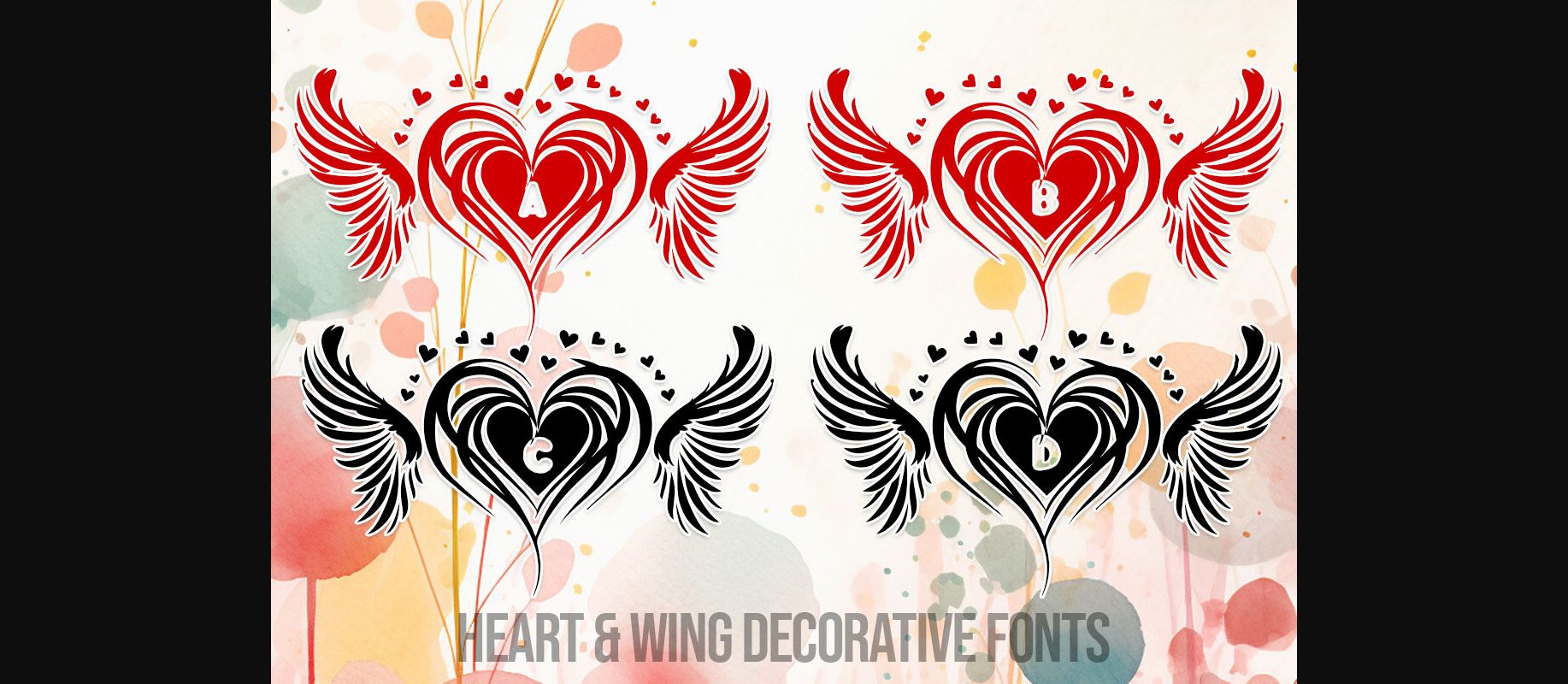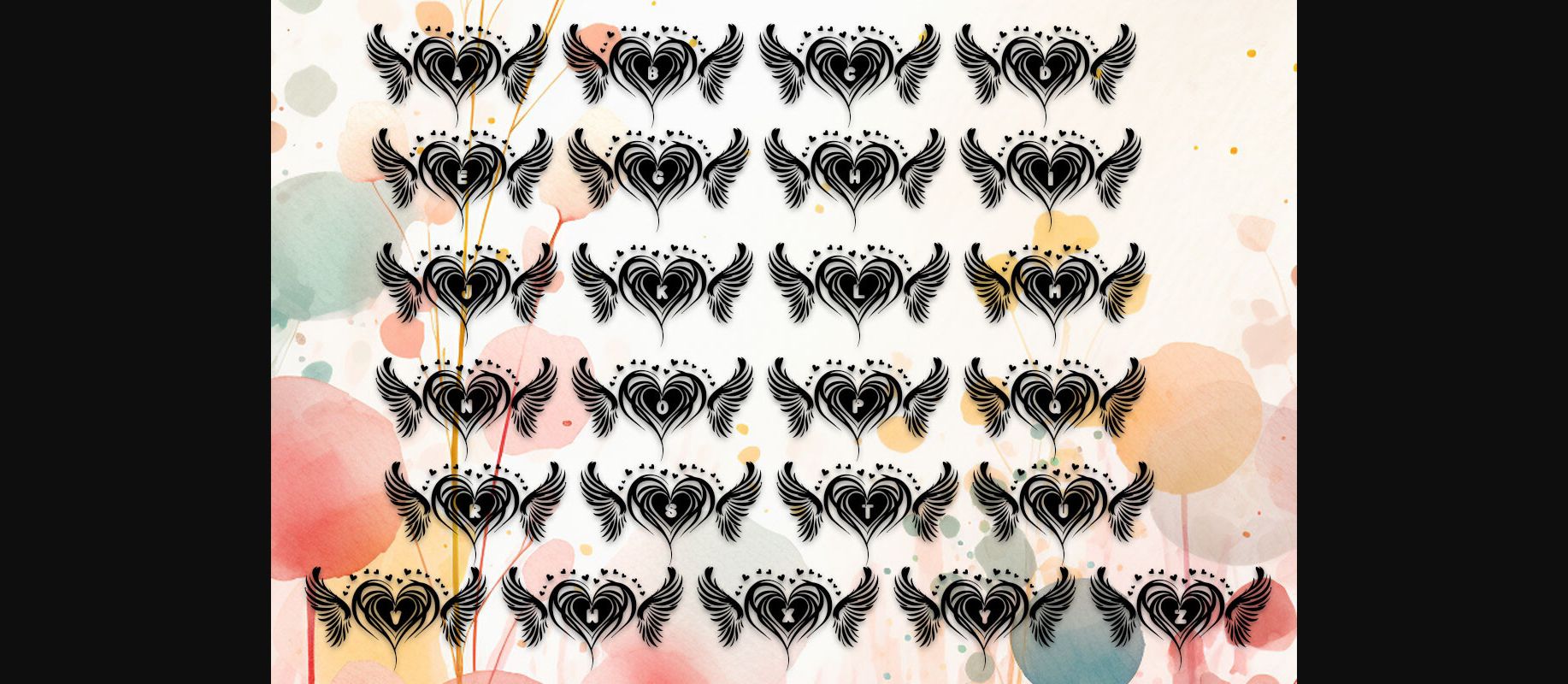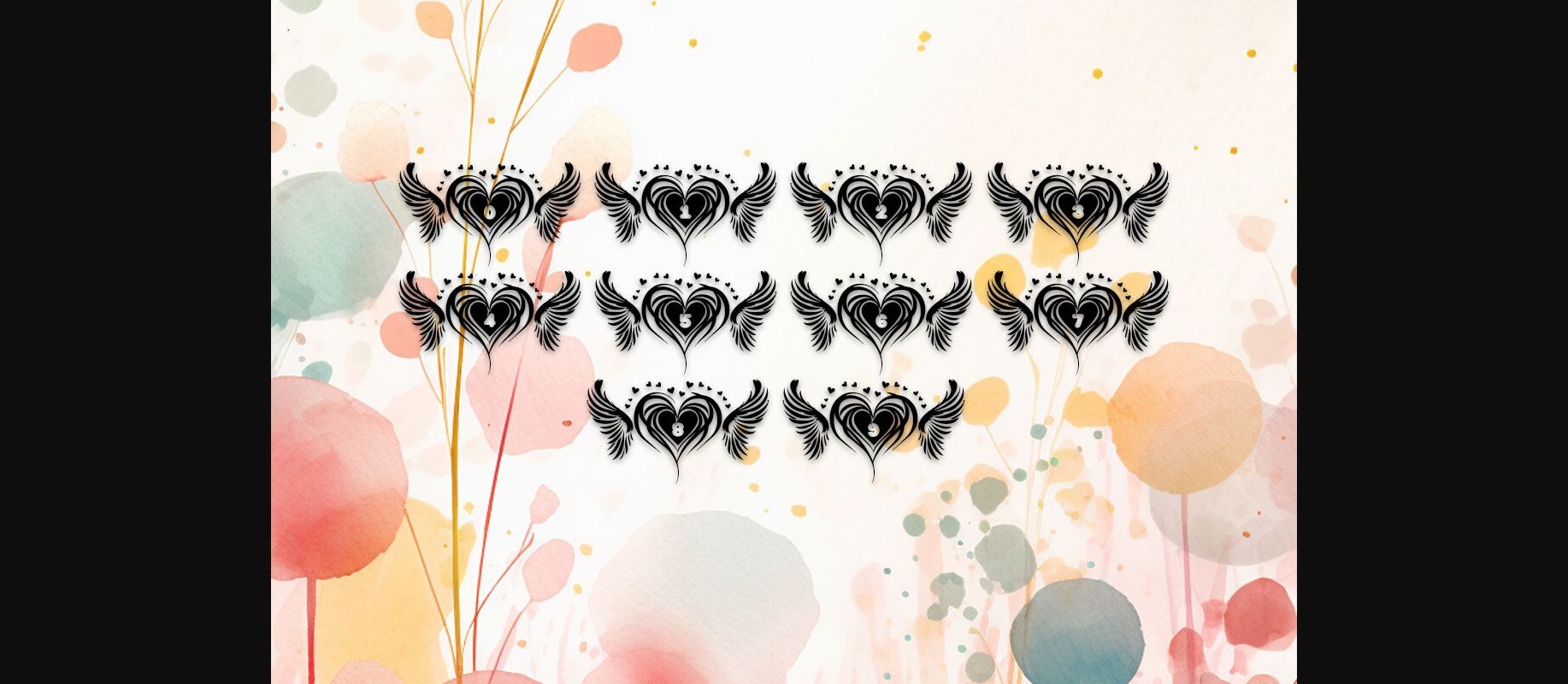
About Heart & Wing Font
Introducing “Heart & Wing Fonts,” a captivating set comprising 36 characters, including 26 uppercase letters and numbers 0-9. This font collection beautifully illustrates wings encircling a heart symbol